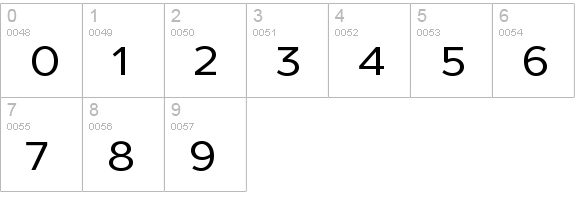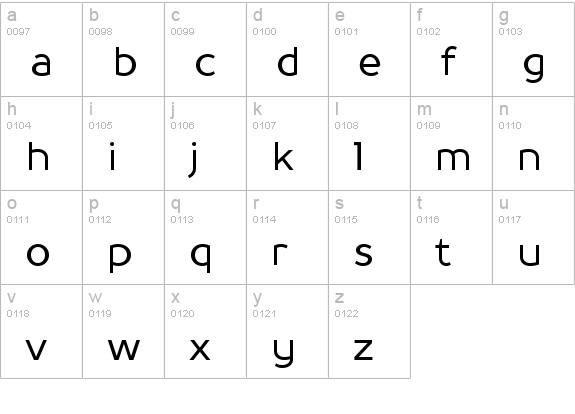
TT Prosto Sans is a modern and versatile typeface that offers exceptional readability and clean lines. This sans-serif font exudes a contemporary aesthetic while maintaining a timeless elegance, making it suitable for a wide range of design projects. With its extensive range of weights and styles, TT Prosto Sans provides endless possibilities for creating stunning typography. What sets TT Prosto Sans apart is its accessibility - this high-quality font is available for free download at FontsMarket.com. Whether you're a designer, a student, or a business owner looking to enhance your brand, TT Prosto Sans offers a professional and polished look that will elevate any project. Embrace the freedom to express your creativity with TT Prosto Sans, the perfect choice for all your design needs.